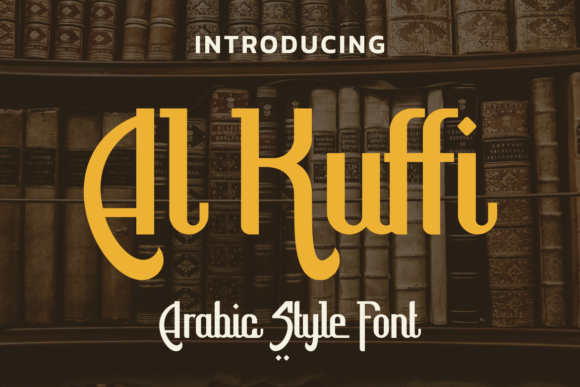
The Elegance of Al Kuffi Font: A Designer’s Delight
I still remember the project that led me to discover the beauty of Al Kuffi font. I was working on a branding campaign for a luxury client, and I needed a font that would convey sophistication and elegance. After hours of searching, I stumbled upon Al Kuffi, and it was love at first sight. The bold strokes, the flowing curves, and the exotic charm of this Arabic-style font won me over. In this article, I’ll share my experience with Al Kuffi, its features, and how to make the most of it in your designs.
• ✨ Elegant and sophisticated design inspired by Arabic calligraphy
• ✅ Perfect for branding, advertising, print materials, and digital content
• ✅ PUA encoded for easy access to glyphs and ligatures
• ✅ Unique and exotic appearance that adds culture and artistry to any project
⚠️ While Al Kuffi is a stunning font, it’s essential to note that it may not be suitable for body text or long-form content due to its bold and decorative nature. Additionally, some users may find the font’s uniqueness challenging to pair with other fonts.
🤔 Another thing to consider is that, like any font with a strong personality, Al Kuffi may not be the best choice for every project. It’s crucial to evaluate your design goals and audience before selecting this font.
The Designer Inspiration Behind Al Kuffi
Al Kuffi’s design is rooted in the rich tradition of Arabic calligraphy. The font’s creator drew inspiration from the works of renowned Arabic calligraphers, aiming to capture the essence of this beautiful art form. The result is a font that exudes elegance, sophistication, and cultural heritage.
Q: What is PUA encoding, and how does it benefit Al Kuffi users?
A: PUA (Private Use Area) encoding allows font designers to include additional glyphs and characters beyond the standard Unicode range. For Al Kuffi users, this means easy access to a wide range of ligatures, glyphs, and stylistic alternates, making it easier to create beautiful and intricate designs.
Q: Is Al Kuffi compatible with non-Arabic languages?
A: While Al Kuffi is designed with Arabic script in mind, it may not be the best choice for non-Arabic languages due to its unique design and potential limitations in supporting certain characters.
Q: Can I use Al Kuffi for body text or long-form content?
A: While Al Kuffi is a stunning font, it’s not ideal for body text or long-form content due to its bold and decorative nature. It’s better suited for headlines, titles, and short-form text where its elegance and sophistication can shine.